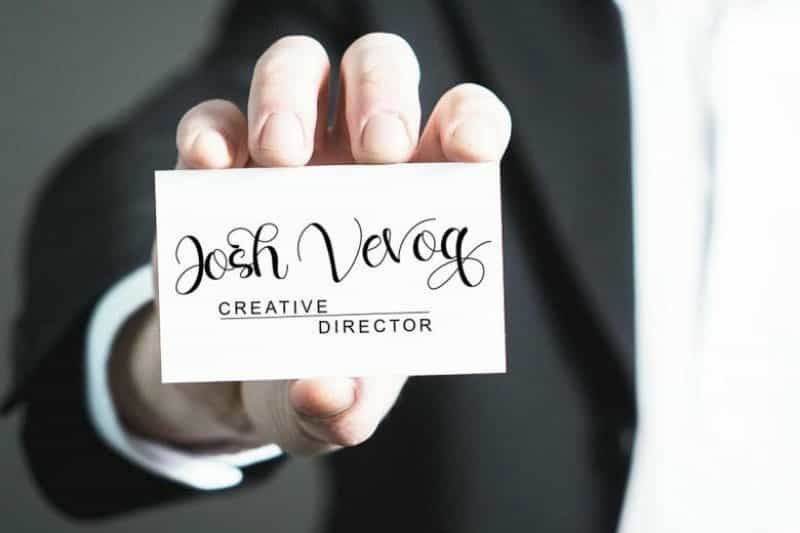
Discover Keorta Script Font, part of the Calligraphy Handwritten collection—a versatile and unique font perfect for adding a personal touch to your projects. Download it for free and enjoy crafting designs with style, from invitations to social media posts. This font is available exclusively for personal use, giving you the freedom to create without limits. Unlock your creativity with Keorta Script Font today!
‘Keorta Script Font’ features hand lettered curves crafted with pens and markers for a touch of sweetness and artistry, in each letter.”This font would work well for your project.